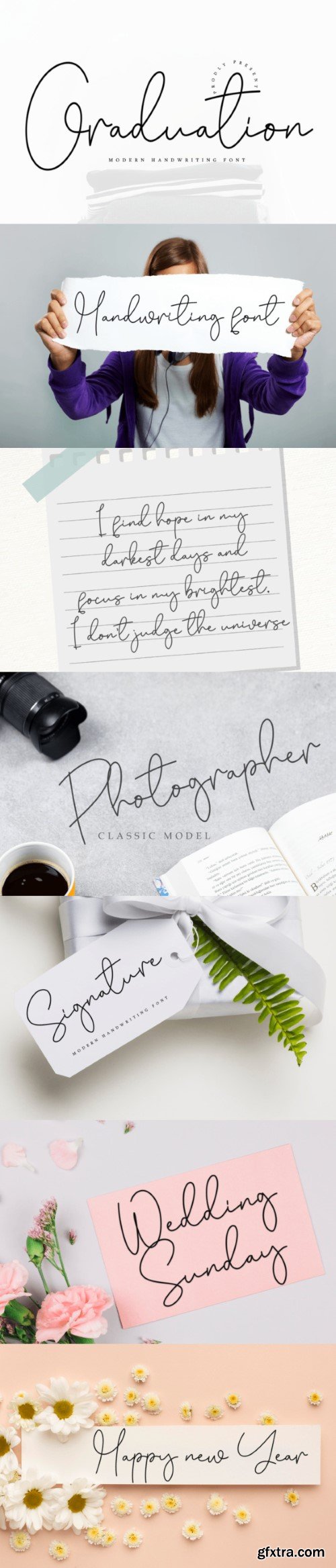
毕业字体
Graduation Font
Graduation is an incredibly unique handwritten font. designed intent to become a true favorite, It is the best choice for creating eye catching logos, branding and quotes. Every letter has a unique and beautiful touch, which will make your design come alive!